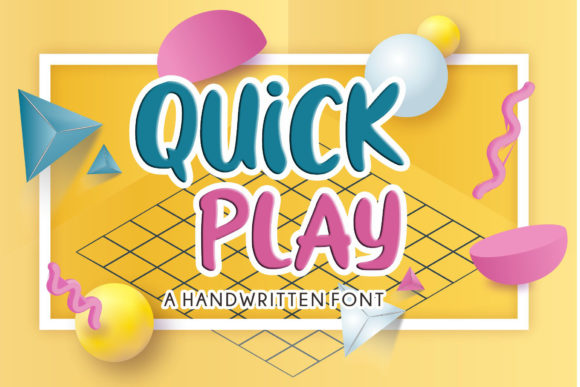
Dive into the whimsical world of Quick Play, a display font that dances with handwritten charm. Its playful spirit and casual elegance evoke a sense of warmth and nostalgia. With Quick Play, every word becomes an expression of your creativity, a personal touch that adds a unique spark to your designs.
Imagine your brand name or logo adorned with the endearing strokes of Quick Play. Its friendly and approachable nature will instantly connect with your audience, leaving a lasting impression that resonates deeply. Whether you're crafting packaging that promises delightful surprises or creating t-shirts that exude a cozy charm, Quick Play will elevate your designs to new heights.
The versatility of Quick Play knows no bounds. Its playful personality lends itself effortlessly to a multitude of creations, from eye-catching posters that demand attention to sophisticated labels that whisper elegance. Let Quick Play guide your imagination as you craft invitations that spark joy, or logos that embody the essence of your brand's playful spirit.
With Quick Play, the possibilities are as limitless as your imagination. Its charmingly informal style invites you to break free from convention and embrace the magic of self-expression. Every letter, every word, every design crafted with Quick Play becomes a reflection of your unique personality, a testament to your creativity.
So why settle for ordinary when you can dance to the rhythm of Quick Play? Embark on a typographic adventure where joy and inspiration intertwine. Let Quick Play be your muse, your guiding light as you create designs that captivate, inspire, and spread happiness with every stroke.